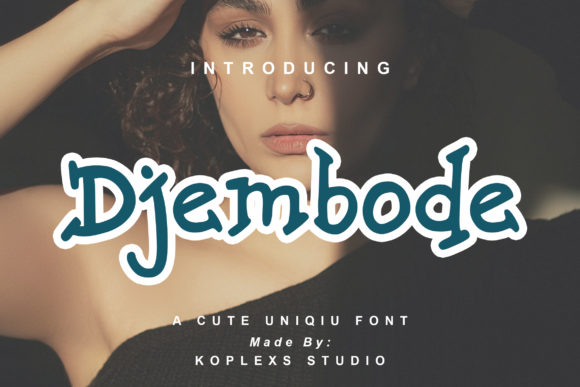
Embark on a typographic odyssey with Djembode Font, the captivating display font that will infuse your designs with a touch of whimsy and uniqueness. Crafted with meticulous attention to detail by the talented Koplexs Studio, Djembode is not just a font; it's an artistic expression that will elevate your projects to new heights of visual appeal.
Unleash your creativity and let Djembode's playful and quirky personality shine through in your designs. This font is a true chameleon, effortlessly adapting to a myriad of applications, from eye-catching logos and branding to playful invitations and social media posts. Its versatility is truly remarkable, making it the perfect choice for designers seeking a font that can seamlessly transition from one project to the next.
Immerse yourself in the world of Djembode and discover a font that is as charming as it is versatile. Its playful curves and distinctive letterforms dance across the page, creating a visual symphony that will captivate your audience. Whether you're a seasoned designer or just starting your creative journey, Djembode is the perfect companion to bring your ideas to life.
With Djembode, you'll have the power to transform ordinary designs into extraordinary masterpieces. Its unique and expressive style will add a touch of personality to everything you create, leaving a lasting impression on your audience. Embrace the magic of Djembode and unlock a world of creative possibilities.